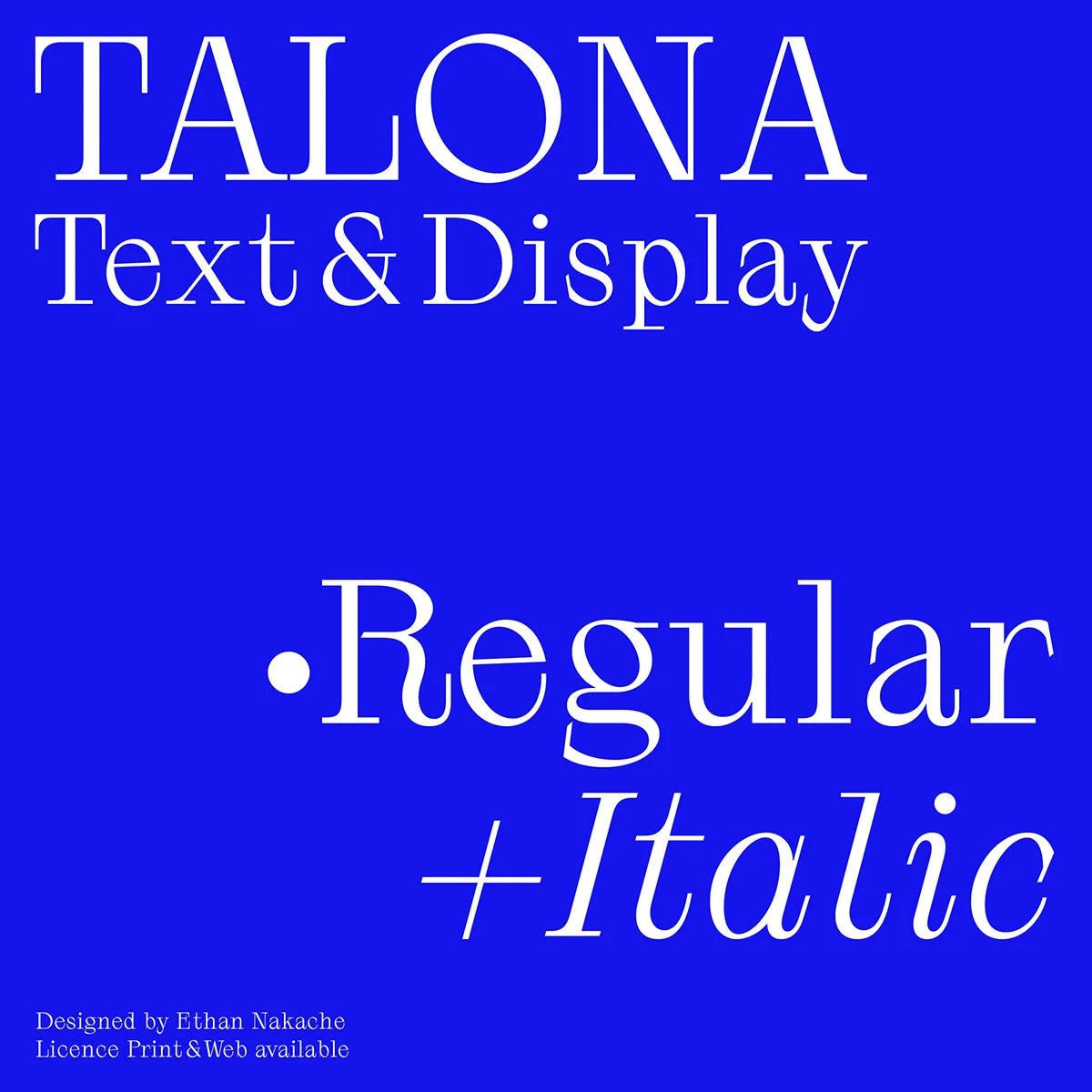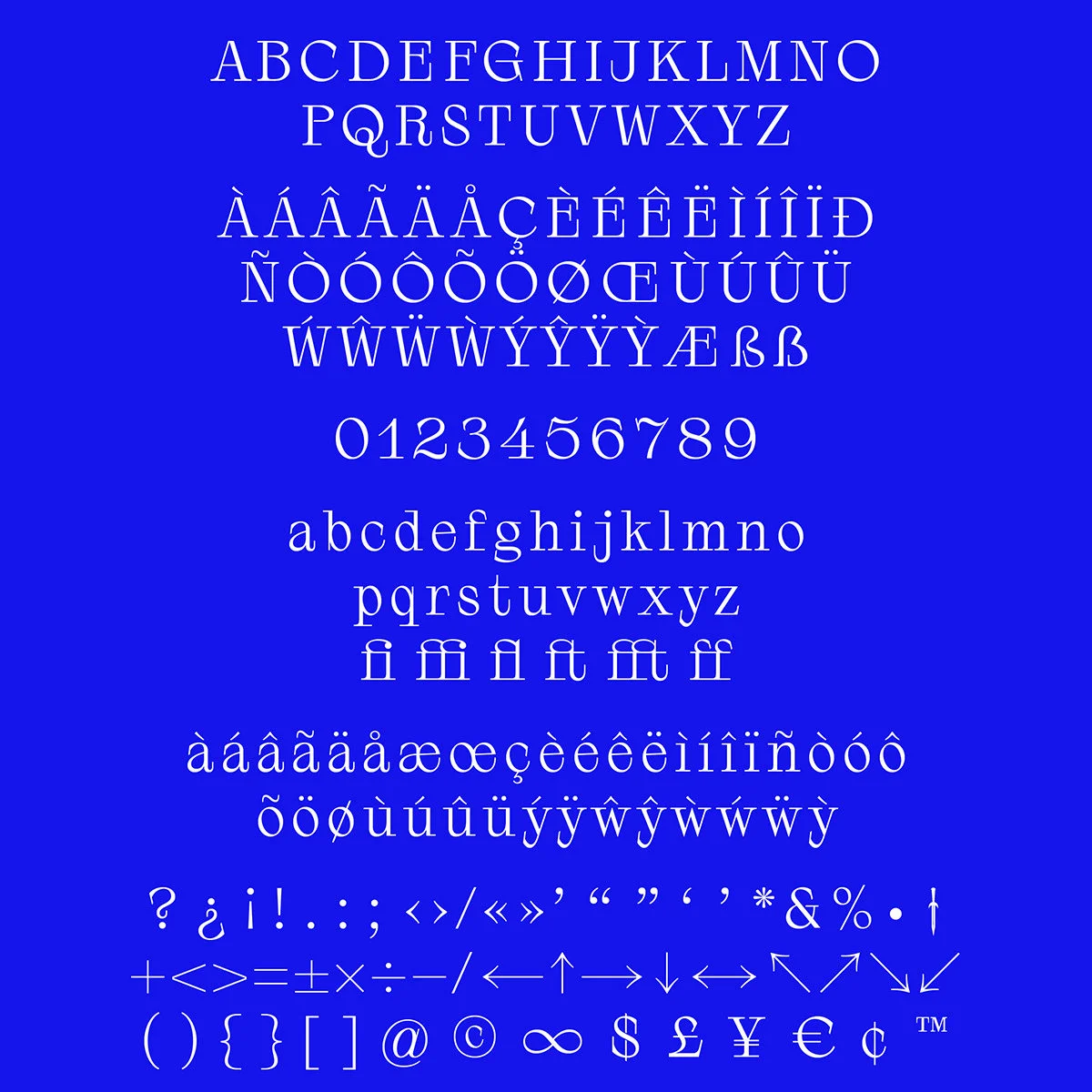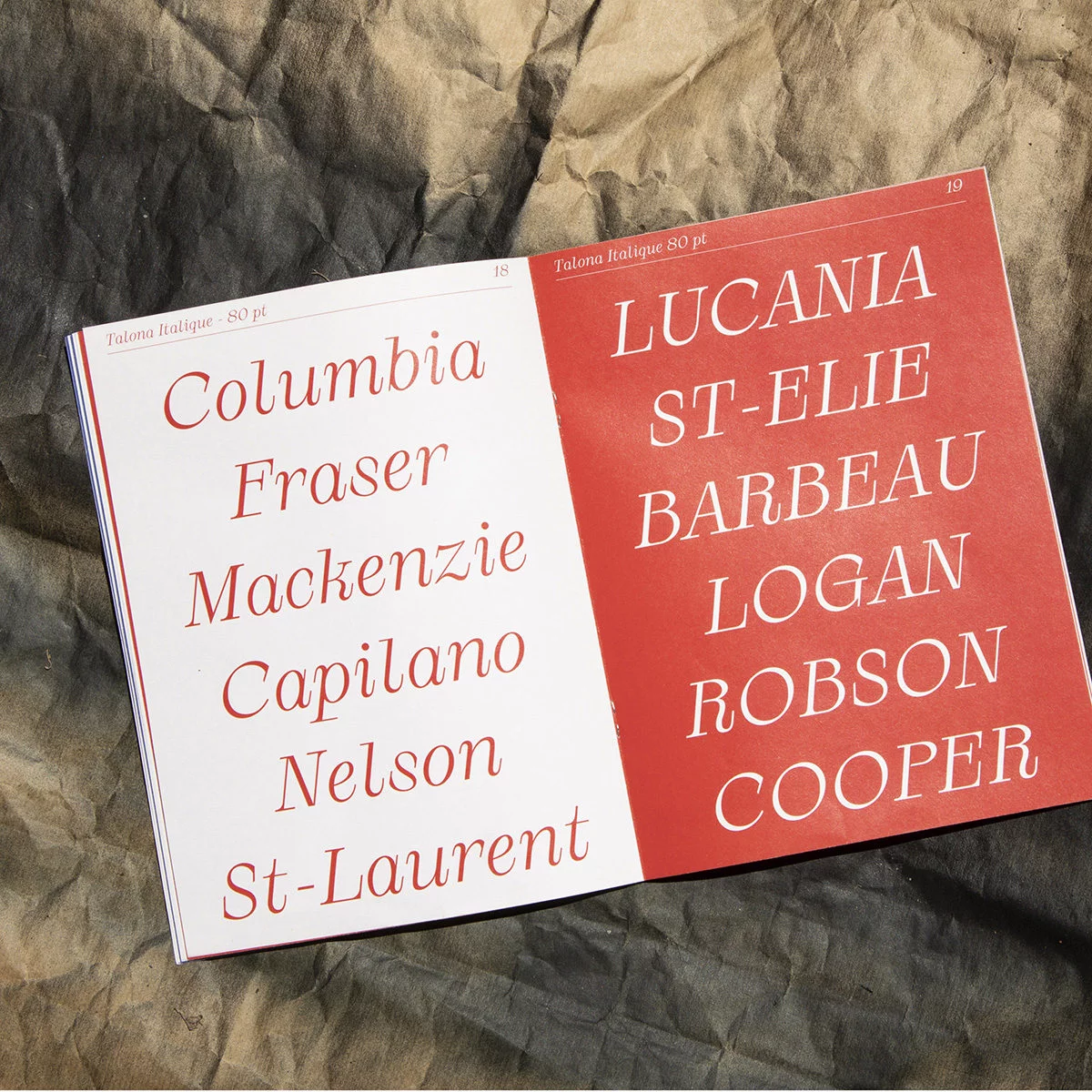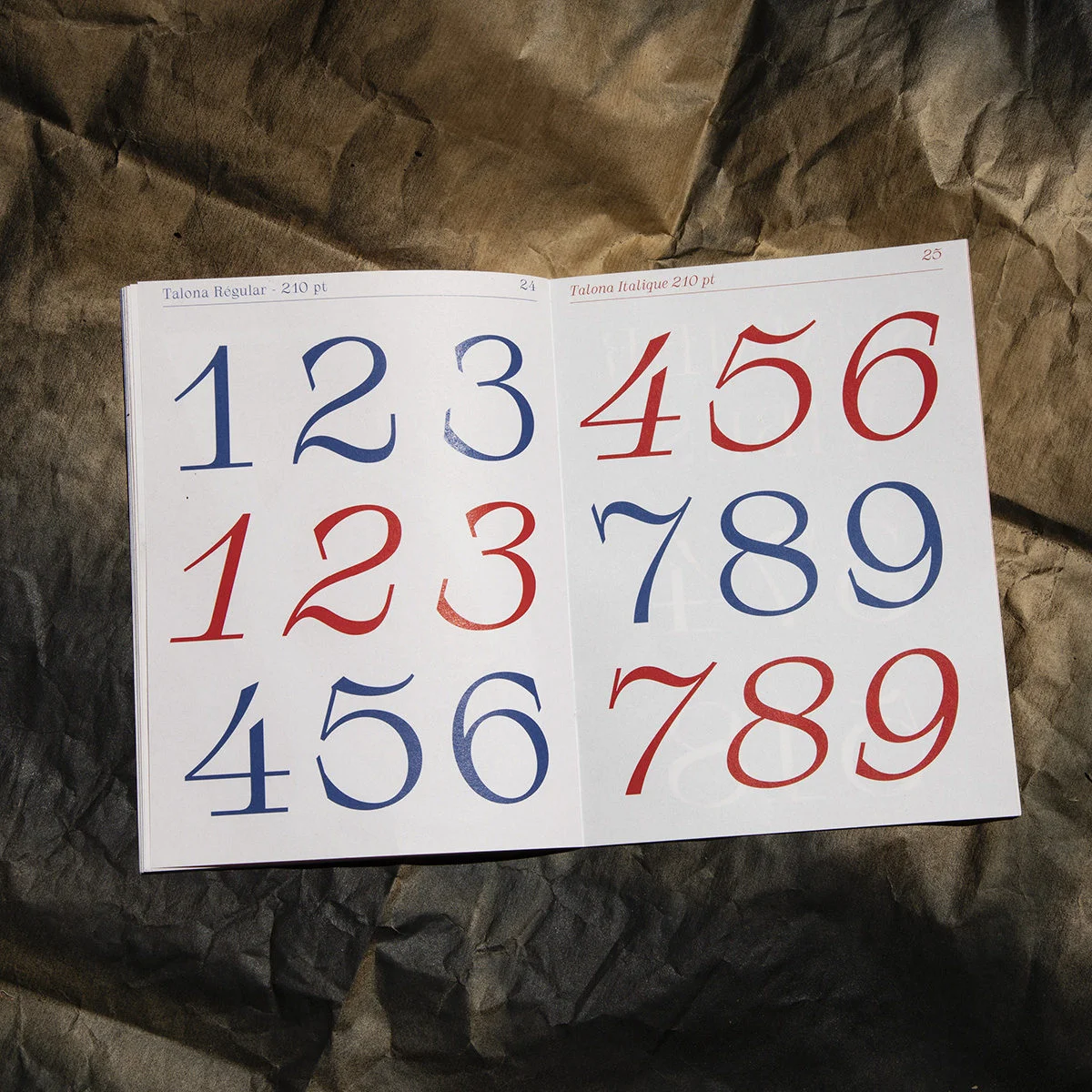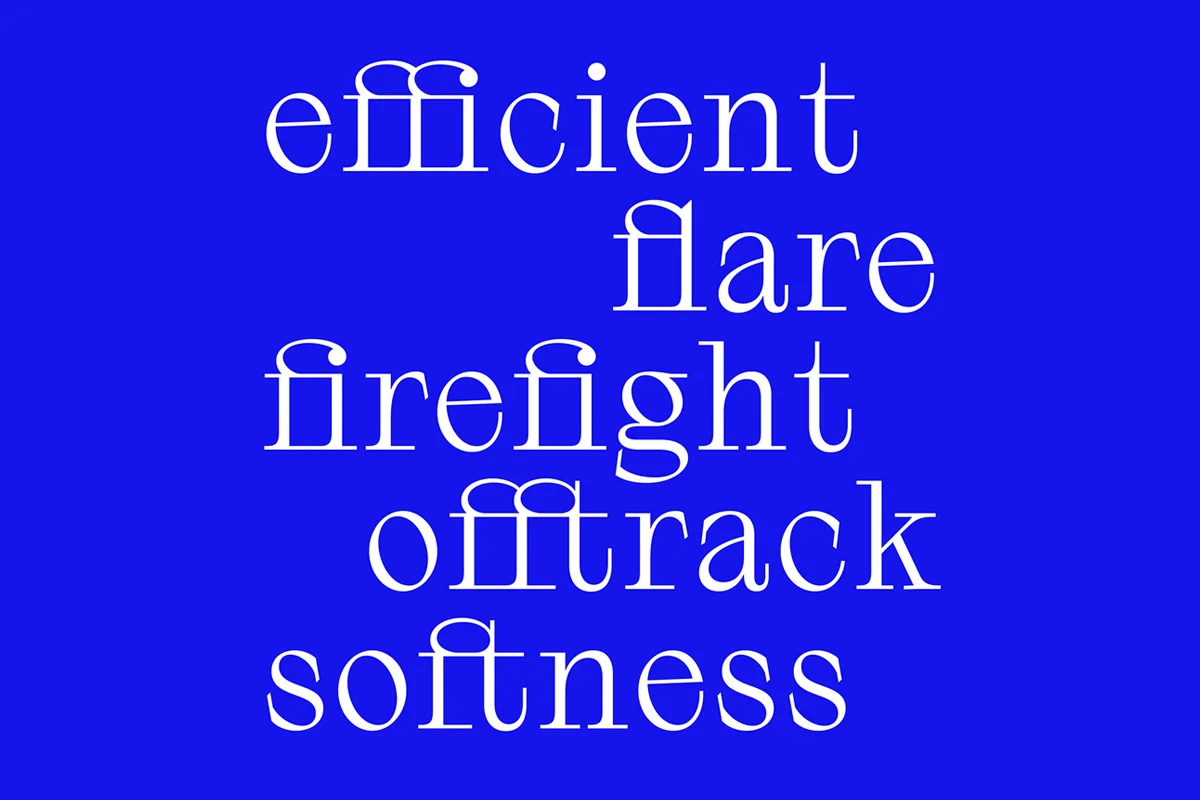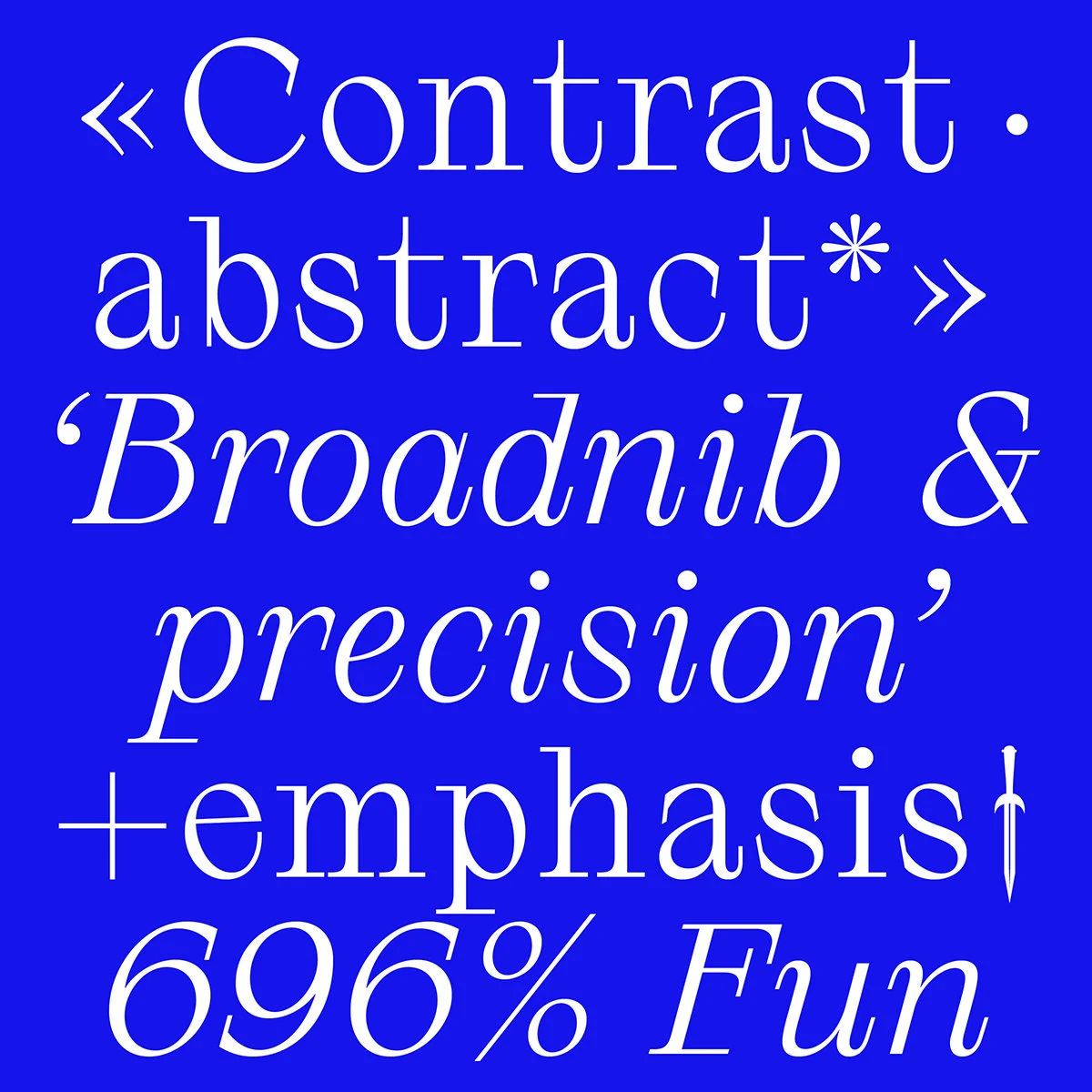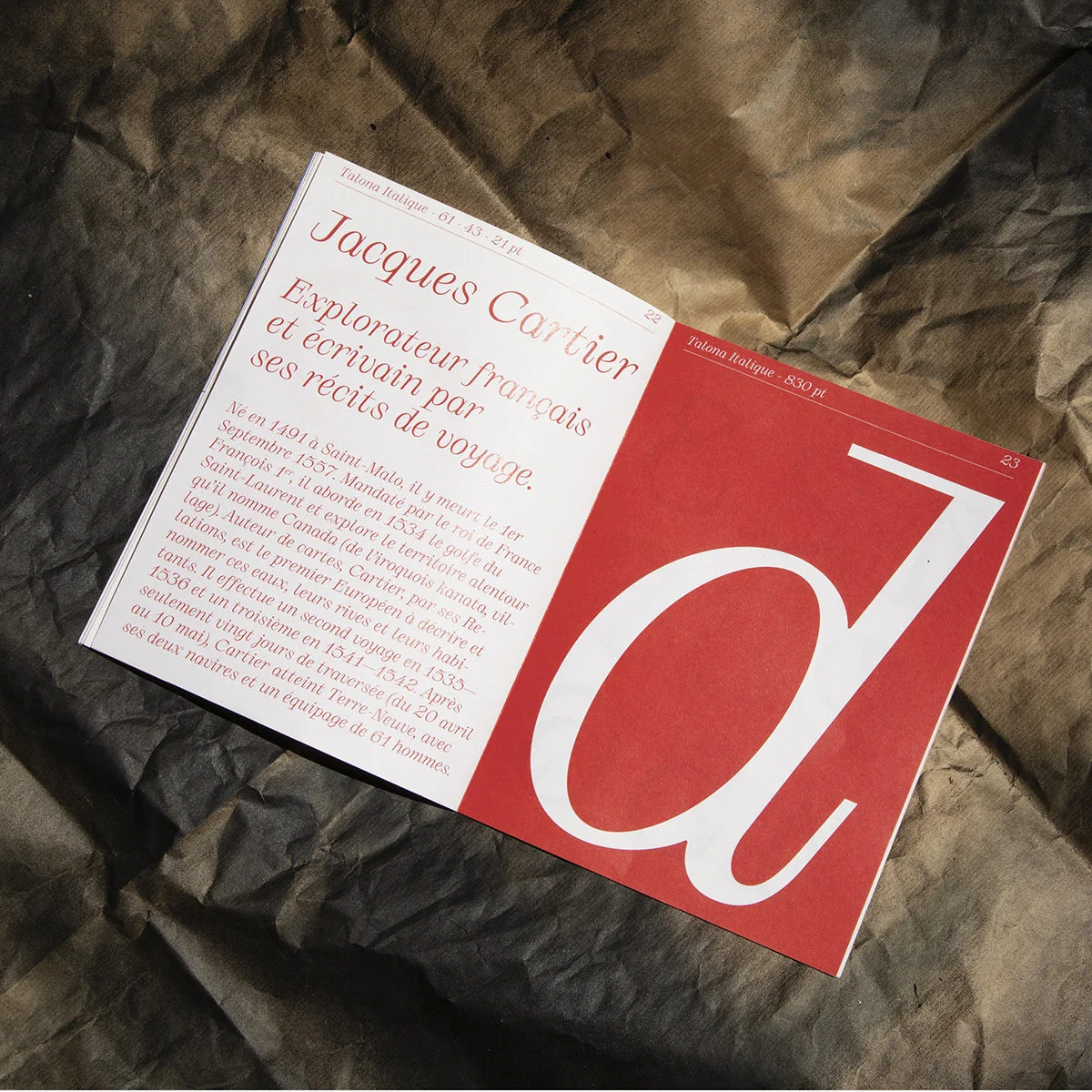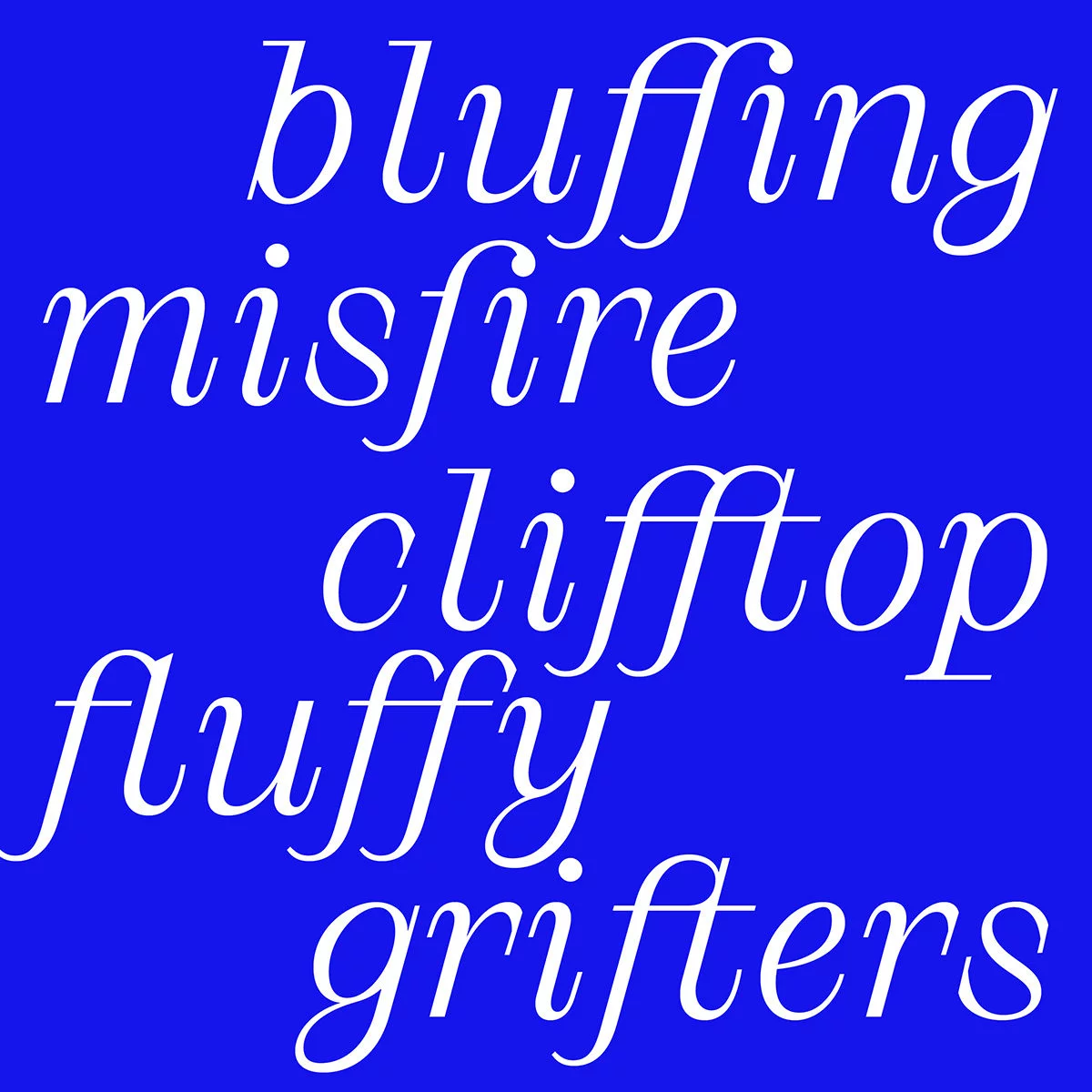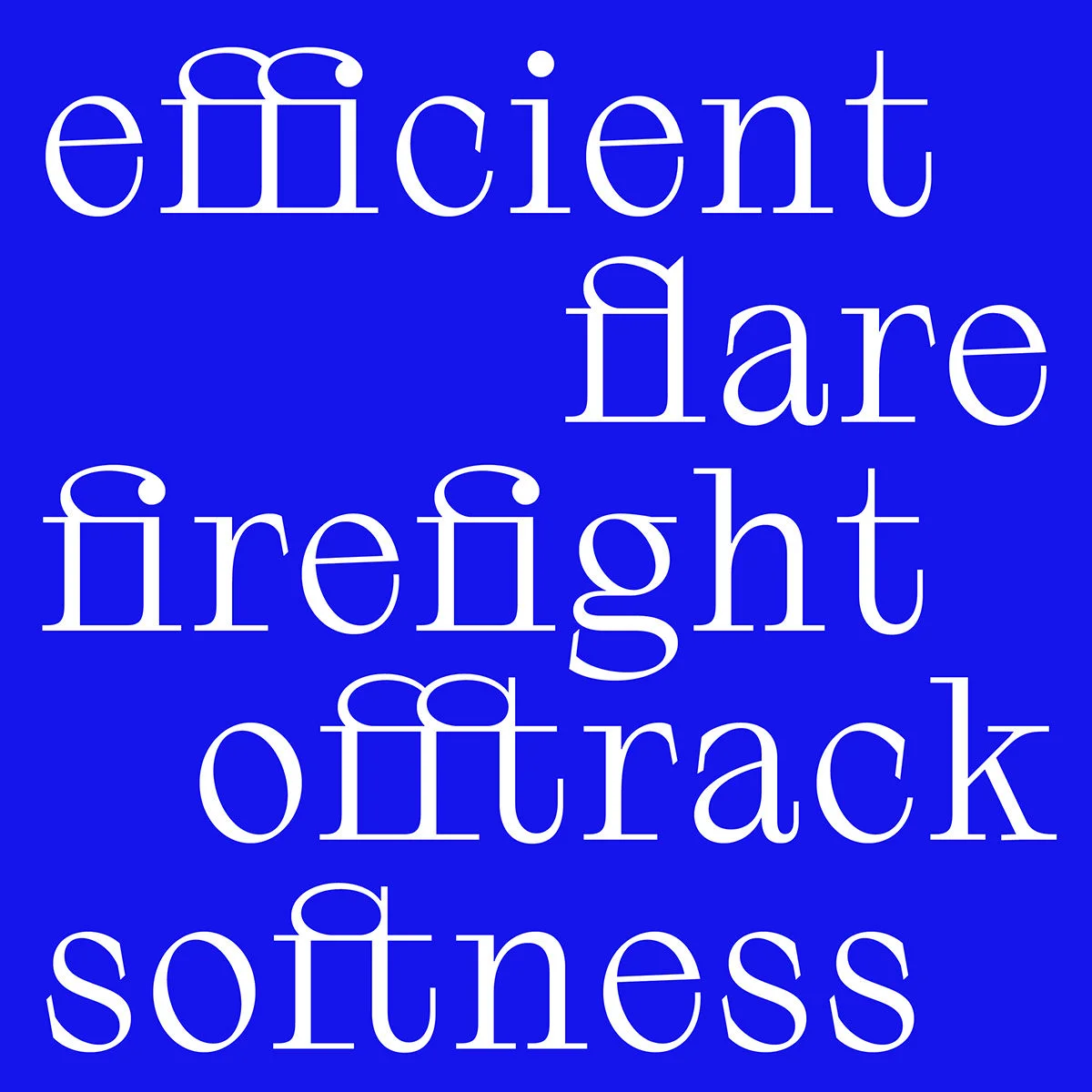
Talona is the lasted release from Ethan Nakache; creator of the incredible typefaces, Sprat and Structa.
The French Graphic and Type Designer graduates from ENSAV La Cambre, Brussels in 2019 and has since focussed on type design and editorial design and ‘creating and using type to produce efficient design.’
‘Talona combines traditional and modern inspirations to produce a display typeface. The main idea of the design was to take a classic drawing from the Didot and apply an oblique contrast axis and long serifs. To take a relatively modern design and carry the influence of a traditional tool, the broad nib pen‘, the designer explains.
Through intuitively conducting research with the nib, the typeface began to take on a unique character and presented with details such as sharp-yet-asymmetrical serifs. Mainly designed for tilting and display purposes, Talona works pretty well in mid-sized body text, too.